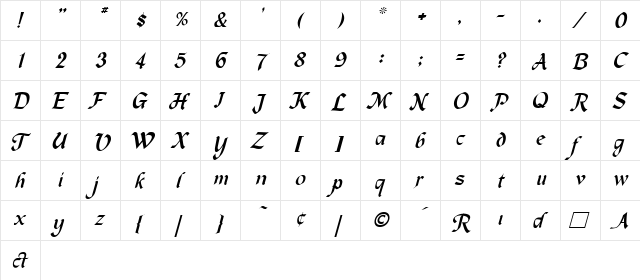
MacHumaine Italic
Design Context for MacHumaine Typeface
MacHumaine offers clean, dependable letterforms without strong stylistic allegiance, making it a practical choice for designers who need flexibility. The dynamic lean of this cut emphasises speed and emphasis in any layout.